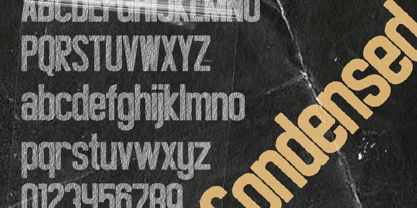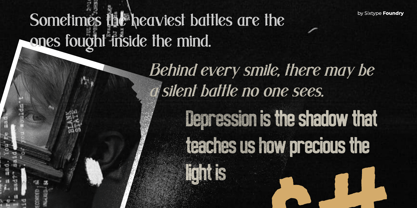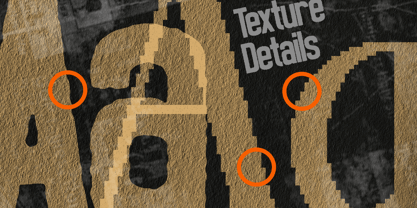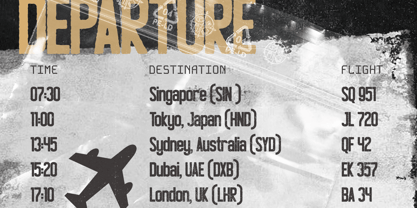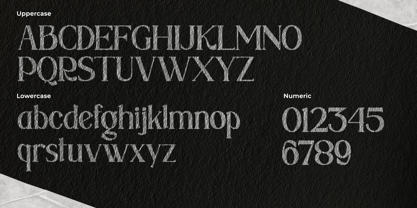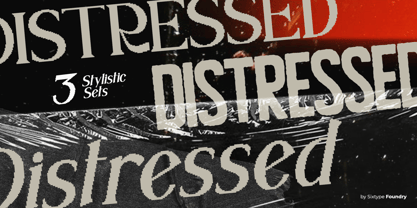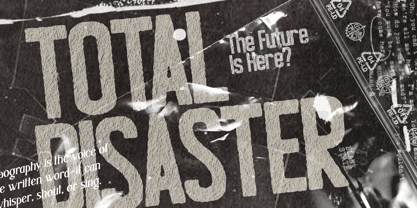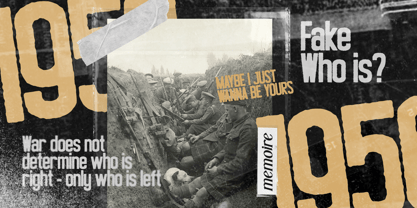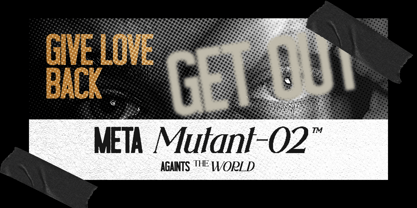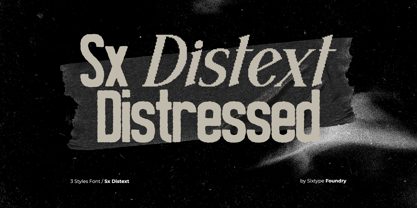
Sx Distext
The Sx Distext Font Family was designed by and published by Sixtype Foundry. Sx Distext contains 3 styles and family package options. More about this family
Sx Distext is a modern condensed and serif typeface family crafted for strong visual impact and clean, contemporary branding. Featuring sleek proportions, sharp structures, and an elegant rhythm, this font ensures clarity, versatility, and professional typography across both digital and print media. Designed for creatives seeking a modern condensed font for logo design, brand identity, posters, social media graphics, packaging, and editorial headlines, Sx Distext strikes a perfect balance between style and readability. From bold branding to minimalist layouts, this typeface seamlessly adapts to fashion labels, tech startups, creative studios, lifestyle brands, and advertising campaigns, making it an ideal choice for diverse applications.